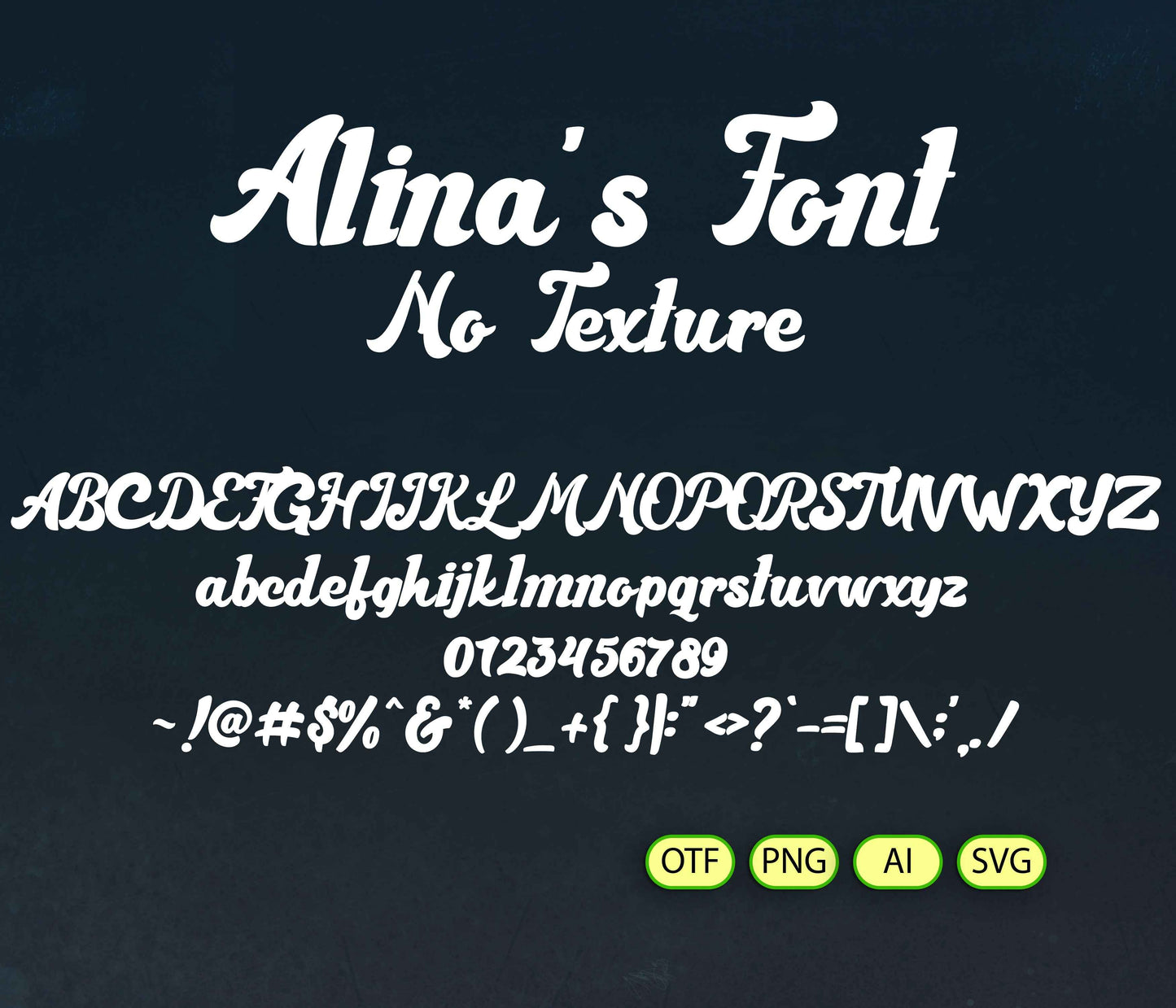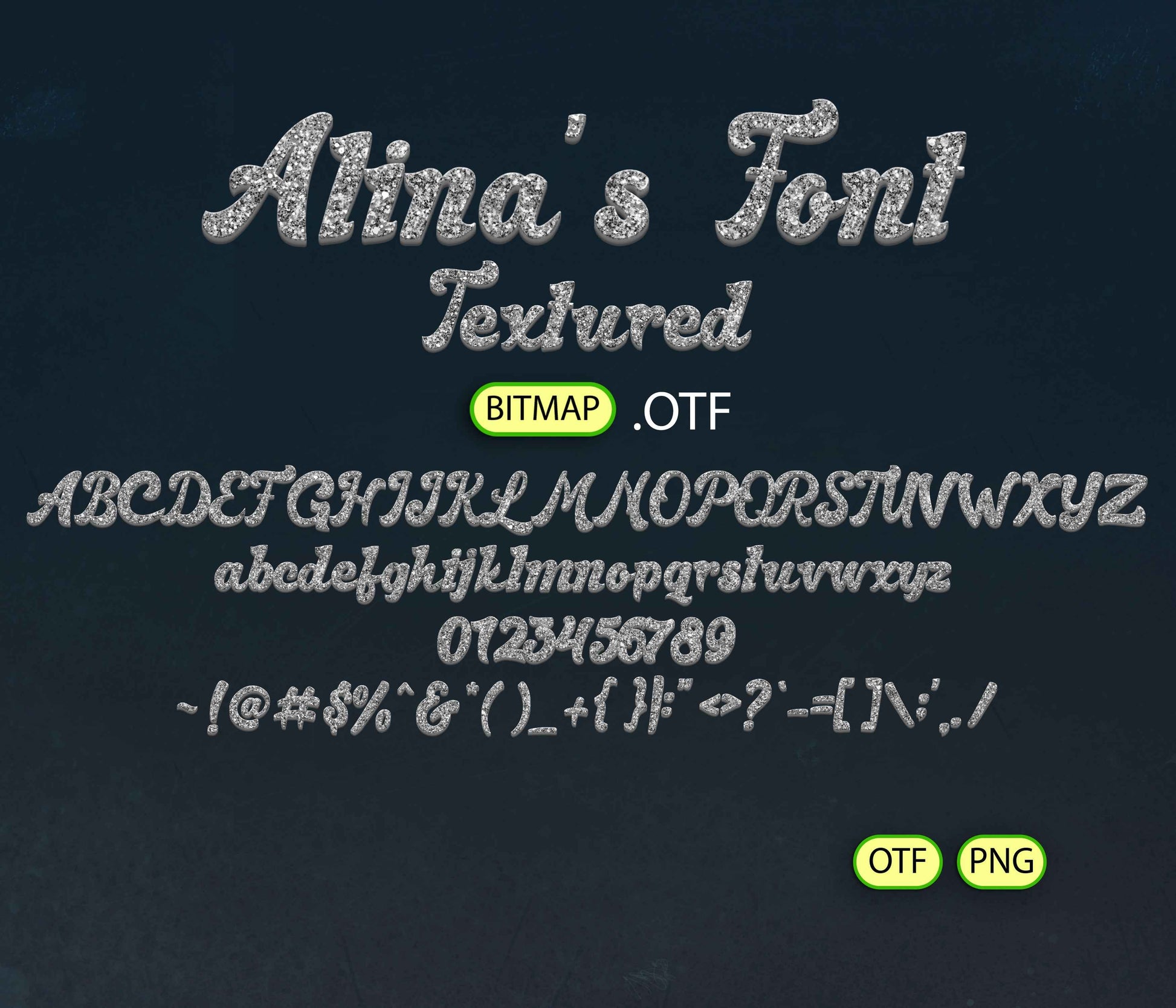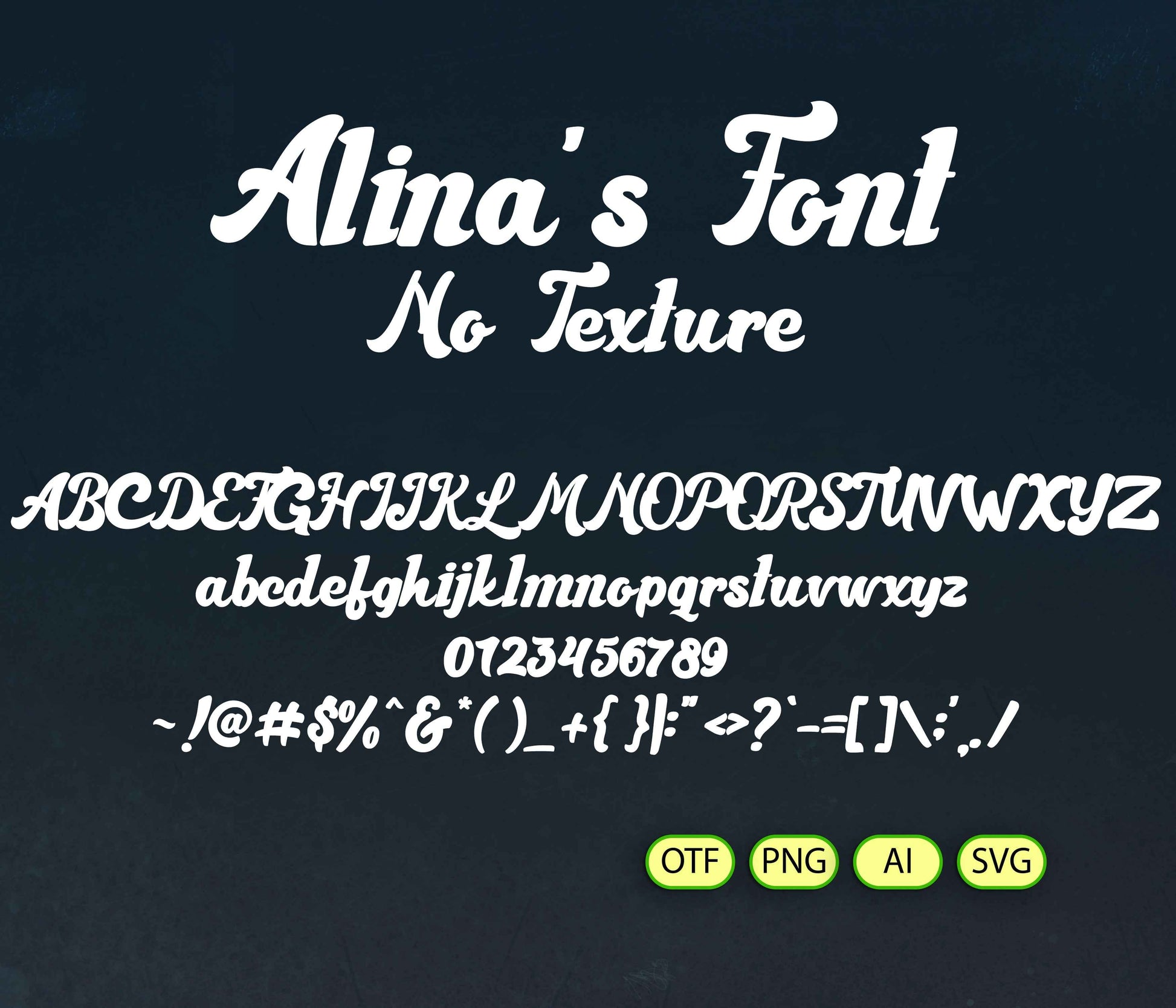
Glittering Silver Font Textured
Introducing Glittering Silver Font a font that exudes sophistication with its cool, silvery sheen. This font, with its silver allure and diamond accents, is the epitome of class and luxury for any seasonal celebration.
Here are seven chic ways to use the Glittering Silver Font:
- Exclusive Event Invitations: Elevate your event with invites that shine with sophistication.
- New Year's Cards: Send wishes that sparkle into the new year with silver elegance.
- High-End Retail Signage: Attract discerning customers with signs that reflect premium quality.
- Elegant Window Displays: Outshine the competition with a display that dazzles in silver.
- Premium Social Media Branding: Give your brand a touch of luxe with posts dressed in silver.
- Bespoke Gift Wrapping: Offer personalized wrapping that turns presents into treasures.
- Designer Apparel: Launch a line of apparel that glimmers with exclusivity for the festive season.